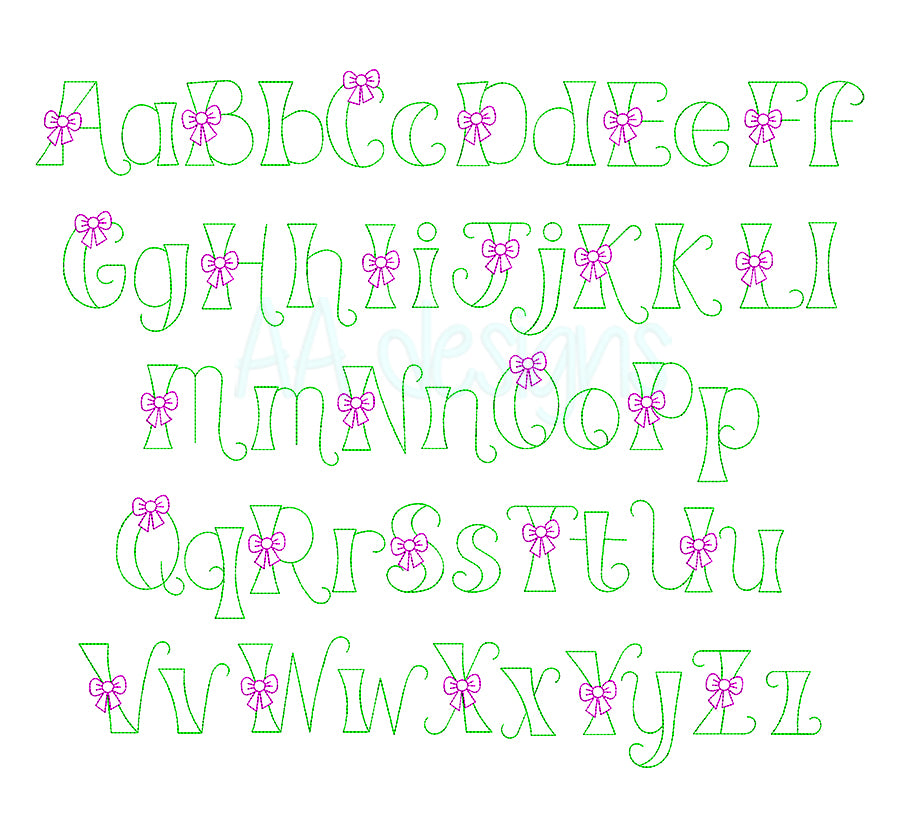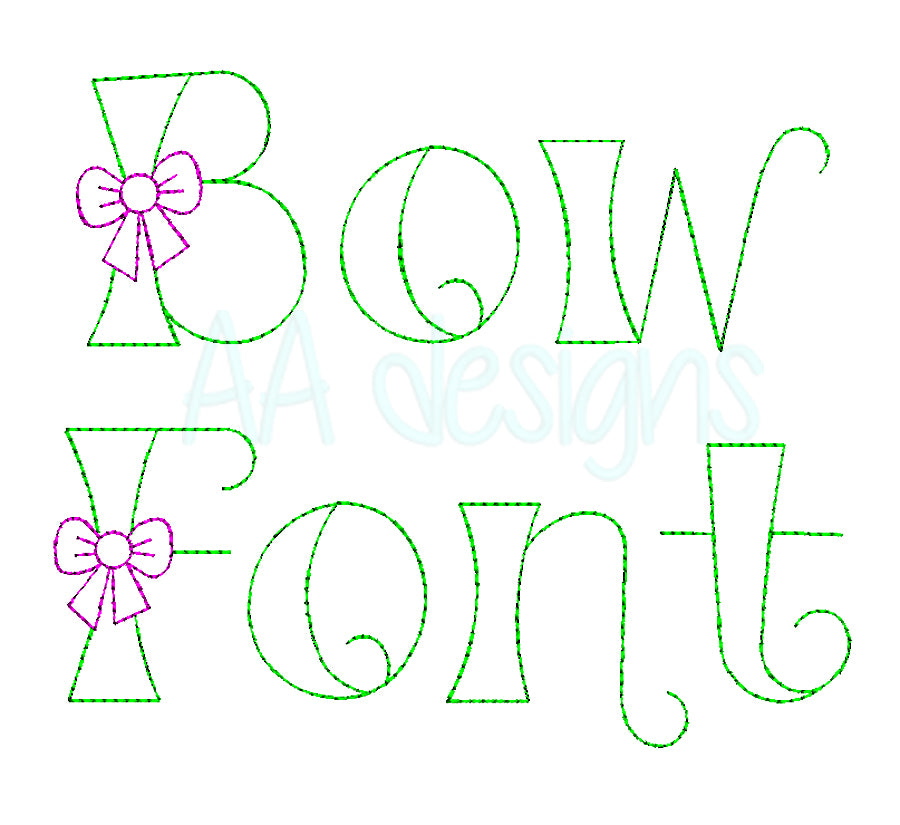
Bow embroidery font. Machine embroidery alphabet with cutie bow. PES DST BX and all files for embroidery machine
Bow embroidery font
This font comes with letters in 3 sizes, A-Z (Upper case), a-z (Lower case)